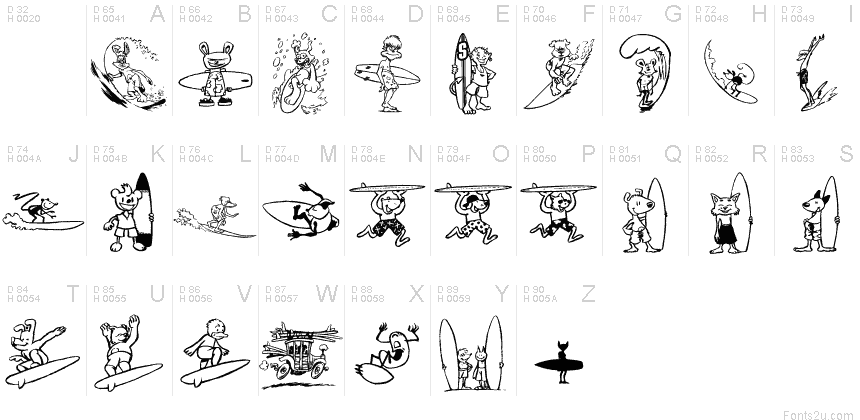
Good Vibers by Imagex is a free cartoon dingbat font devoted to surfers, surfboards, and beachside characters drawn with springy outlines and broad comic gestures. The figures shift between poised portraits and splashy action scenes.
A surf event poster is the clearest match, since these characters can act as mascots, spot illustrations, or scene-setting marks across schedules and promotional graphics. The same cheerful cast suits board-shop branding, T-shirt graphics, and children's activity pages, while editorial designers can turn individual surfers into recurring visual markers for departments, pull quotes, or coastal culture features instead of relying on ordinary small divider ornaments.